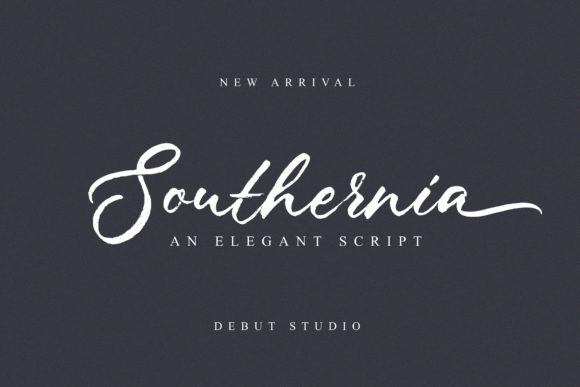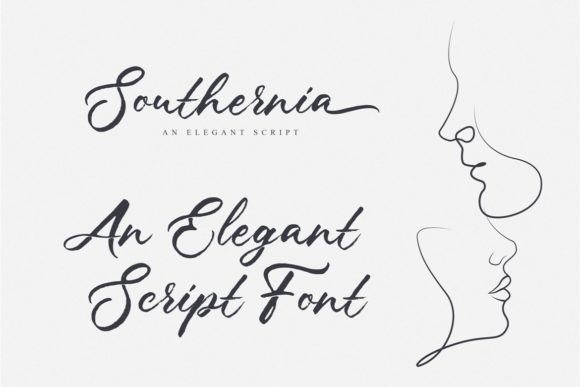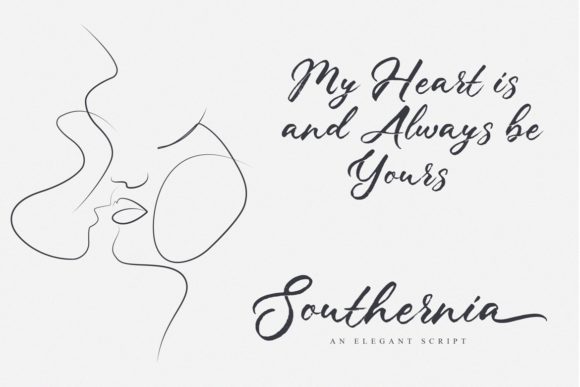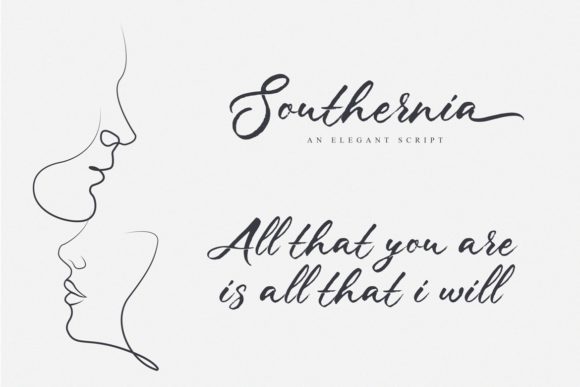
About Southernia Script Font
Southernia Script is an elegant and well-balanced vintage-styled script font that exudes timeless charm. With its smooth curves and graceful letterforms, this font is perfect for fashion branding or editorial designs. Whether you’re working on a fashion magazine, a clothing brand, or any other project that requires a touch of sophistication, Southernia Script adds a sense of elegance and vintage allure. Its classic and refined style captures the essence of a bygone era, while still maintaining a contemporary appeal. Embrace this font confidently and let it elevate your projects with its timeless beauty. You’ll be amazed by the results as Southernia Script brings a touch of vintage elegance to your designs, leaving a lasting impression on your audience.